Punctuation
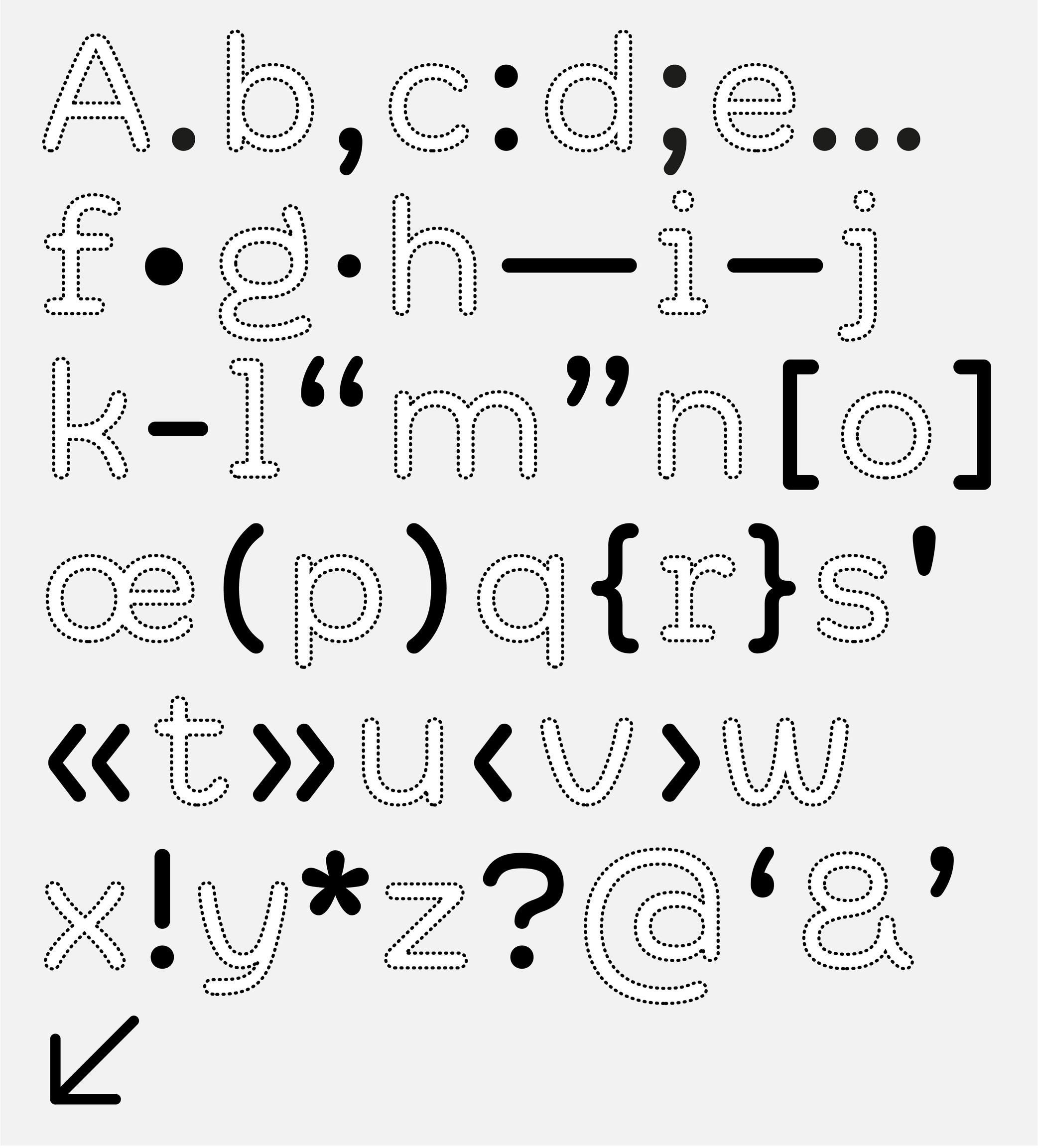
Often forgotten when we think about the elements of a writing system, punctuation is just as important as letters, characters and figures. Punctuation symbols play a very important role in text.
When use correctly, punctuation marks a text’s rhythm and transmits the author’s desired voice. When well-designed in a typeface, punctuation helps with readability and facilitates typesetting and typography.
During the evolution of each writing system across the globe, multiple scripts developed different punctuation shapes for the same or similar purpose. Not every script or language uses the same shapes found in the Latin script.